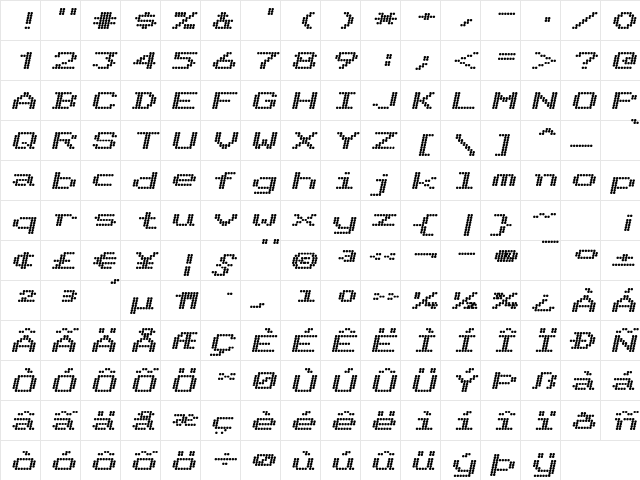
Complete Telidon ExHv Italic glyph index. Displaying only characters natively supported by Telidon ExHv Italic font.
Telidon ExHv is a composed and adaptable typeface that performs quietly and consistently across a wide range of design contexts. The slanted form adds forward momentum and visual energy.
Pro Tip: Use Telidon ExHv for emphasis, pull quotes, and subheadings where its slanted energy can add rhythm to the layout.